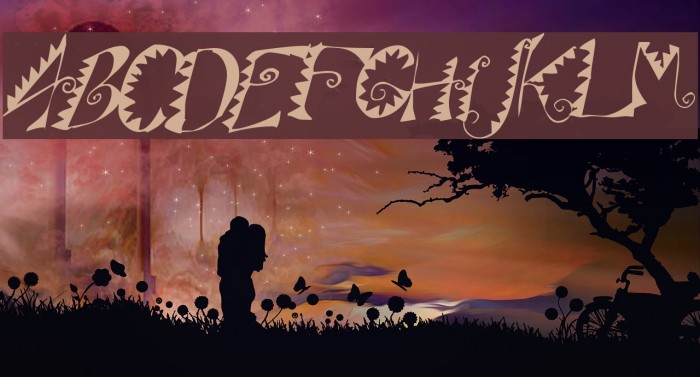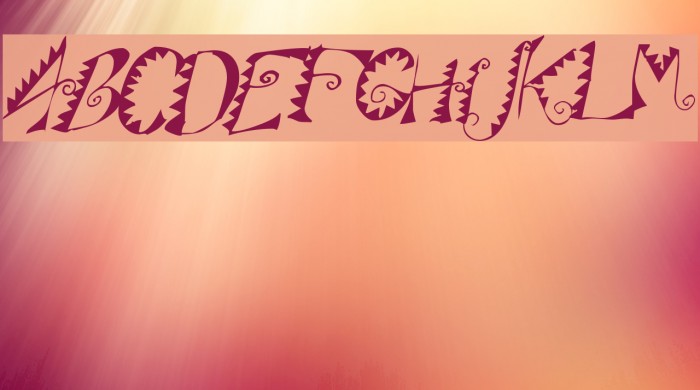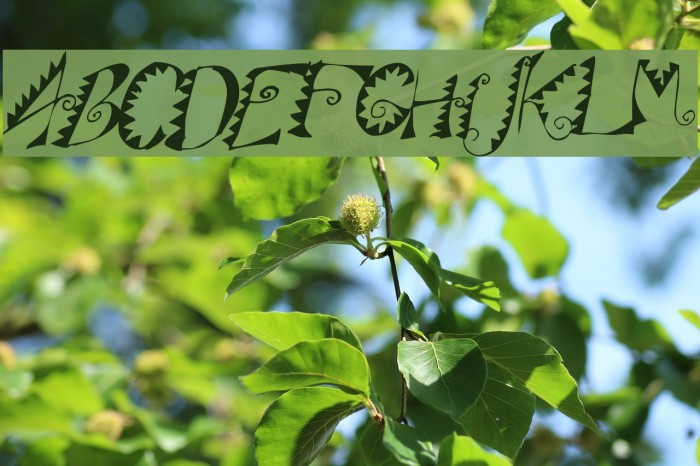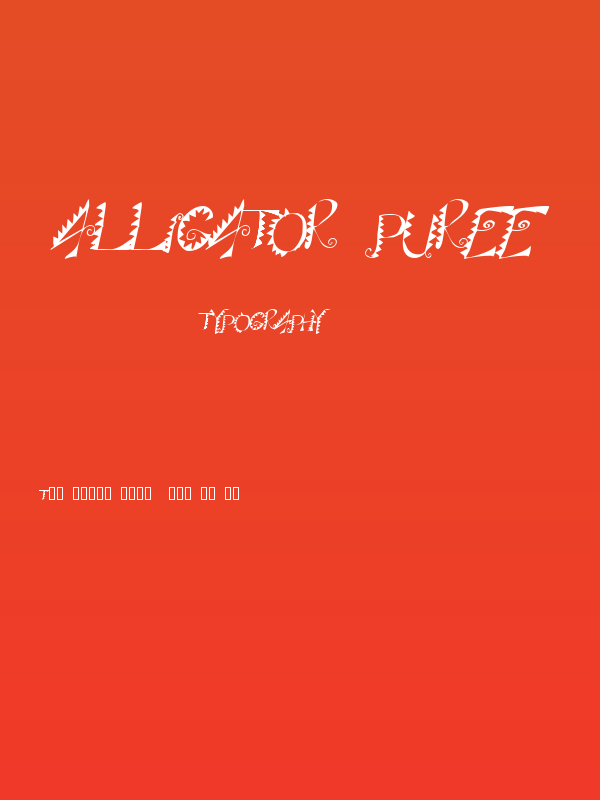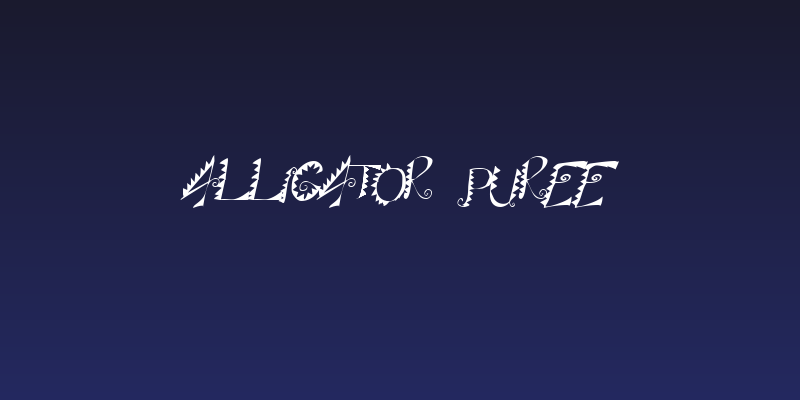
Alligator Puree Font
Alligator Puree Description
This font features a highly decorative and whimsical style, characterized by sharp, jagged edges and swirling embellishments. Each letter is uniquely crafted with a playful, almost chaotic energy, making it stand out with its bold and artistic flair. The uppercase letters are particularly striking, with exaggerated spikes and curls that give the font a dynamic and energetic appearance. The overall design is reminiscent of a fantastical or mythical theme, perfect for capturing attention and adding a creative touch to any project.